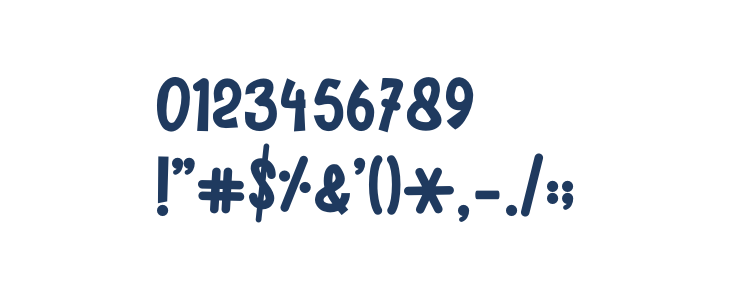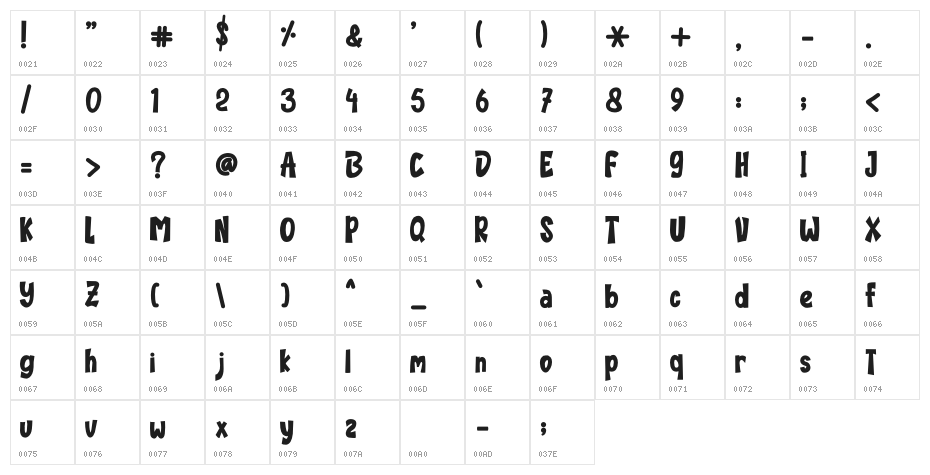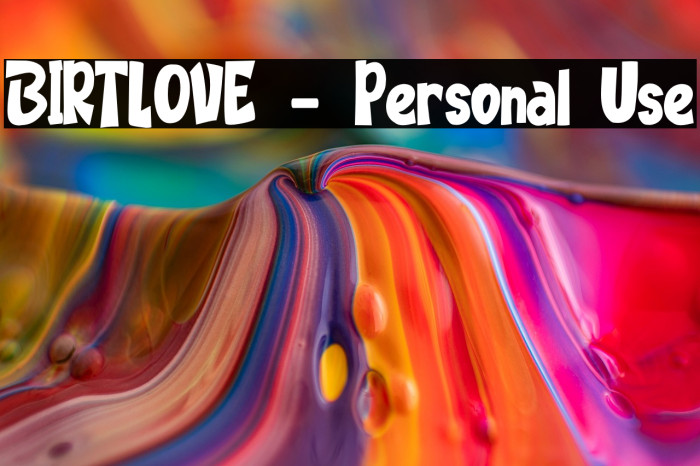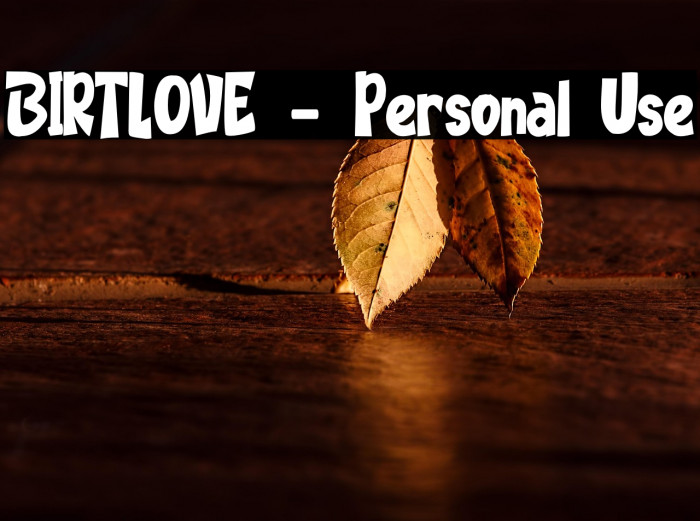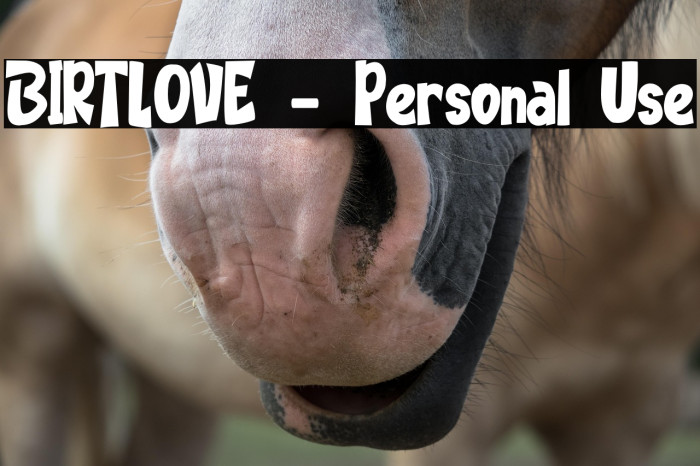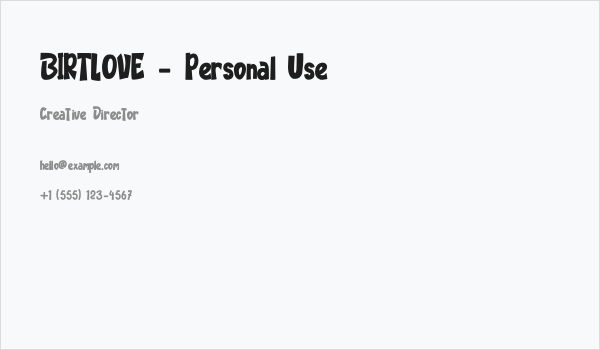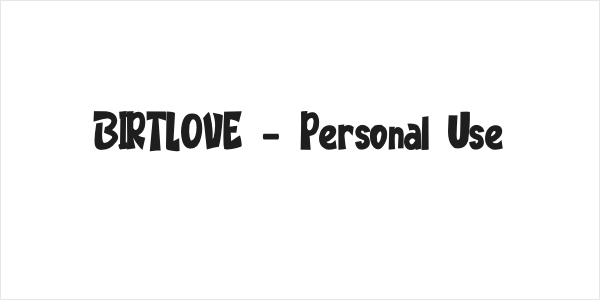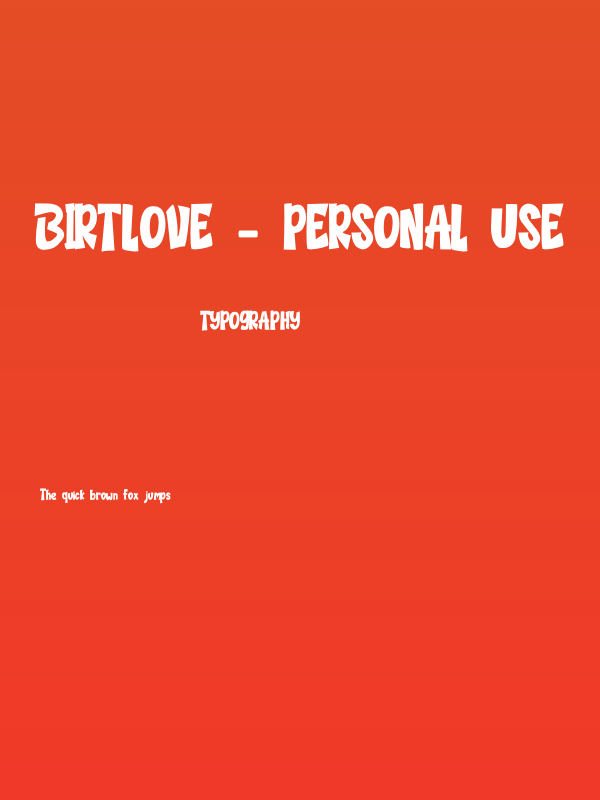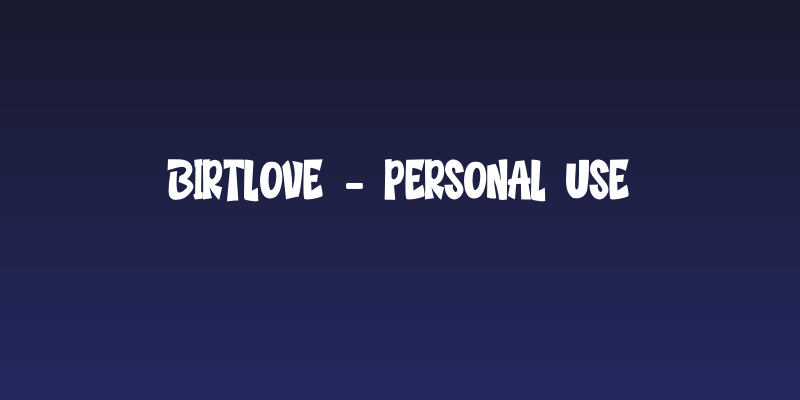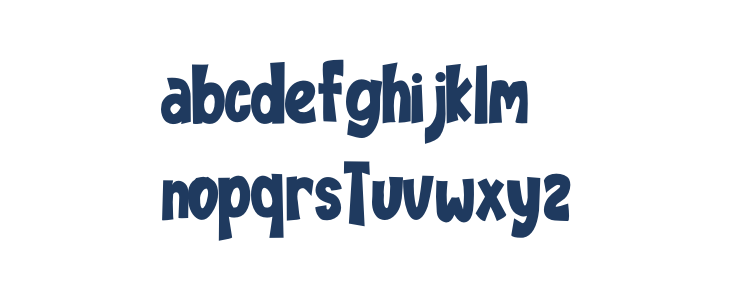
BIRTLOVE - Personal Use Font
BIRTLOVE - Personal Use Description
This font features a playful and bold style with exaggerated curves and a slightly irregular baseline, giving it a whimsical and dynamic appearance. The uppercase letters are particularly wide and expressive, while the lowercase letters maintain a consistent yet lively form. The numbers are equally bold, with a distinct personality that matches the alphabet. Special characters are creatively designed, adding to the font's overall charm. The thick strokes and unique letterforms make it stand out, ideal for projects that require a fun and eye-catching typeface.
| Proposed Projects | Ideal for children's books, playful branding, posters, and creative invitations. |